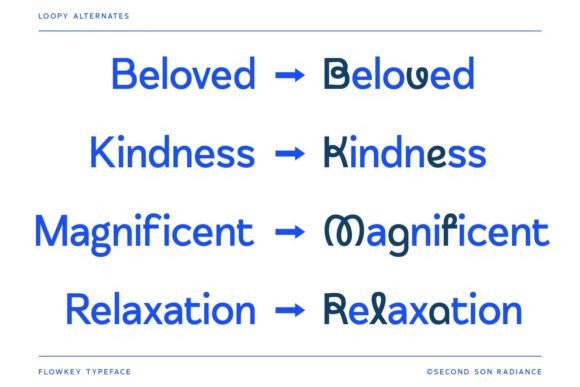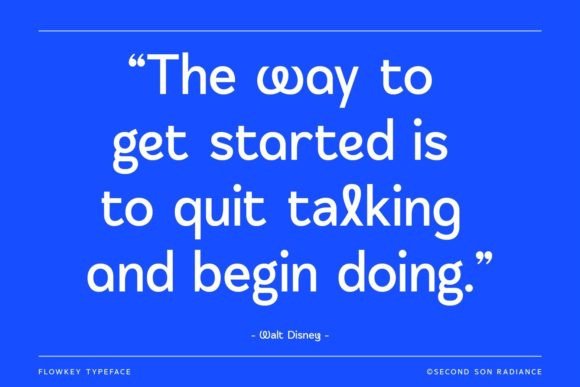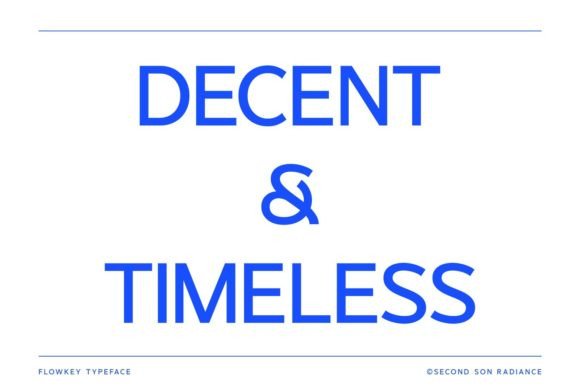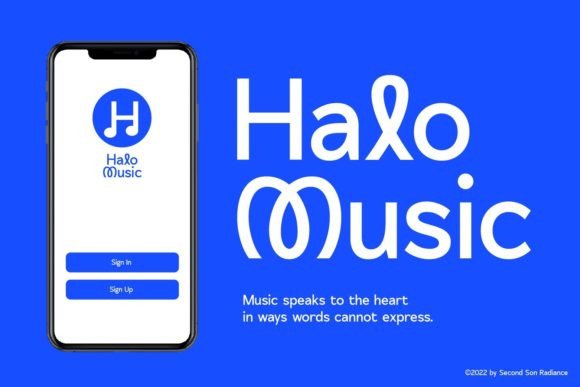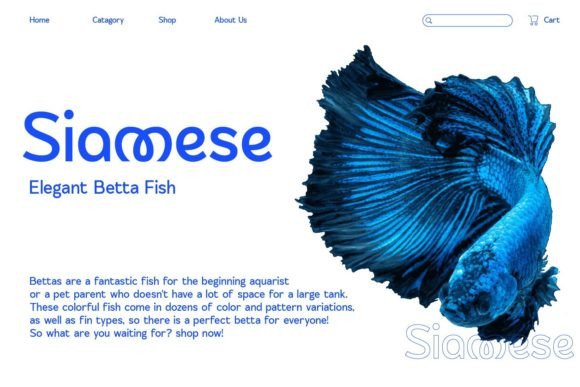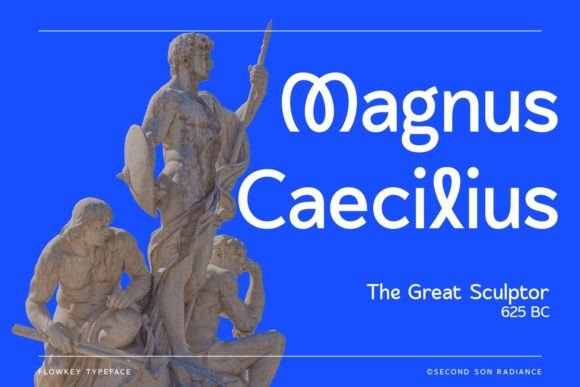
Introduction to Flowkey Font
Flowkey is a modern and casual sans serif font.
Elegant and loopy, this font suits a wide pool of designs ideas .
Key Features of Flowkey Font